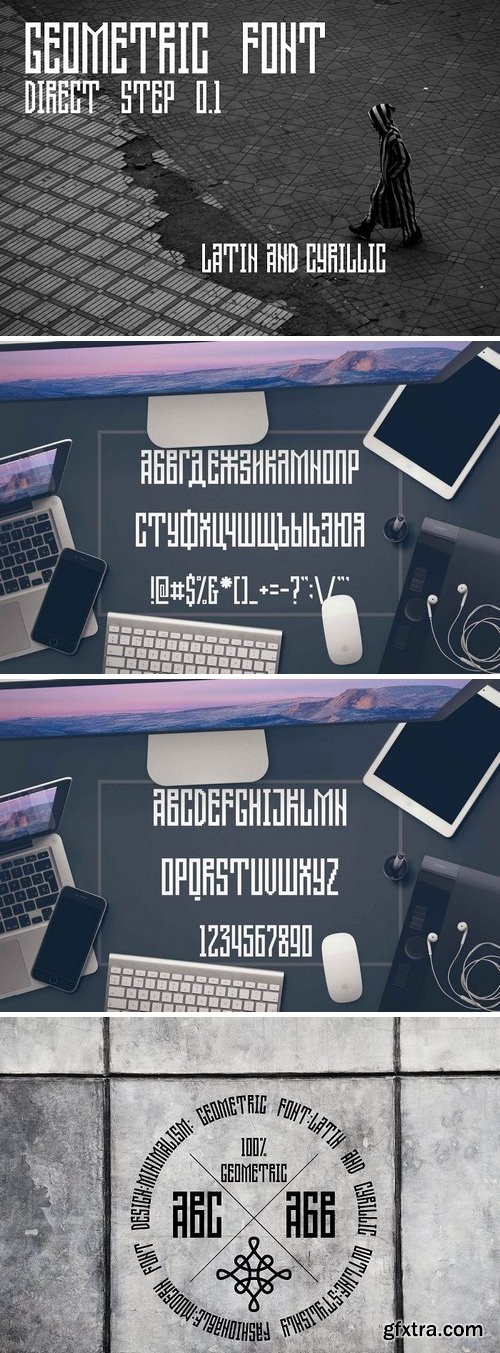
Hi guys! I created a new font. This is a 100% geometric font Direct step 0.1 Latin and Cyrillic inscription You can use it anywhere in your design. The archive contains the following files: OTF EPS10 Ai